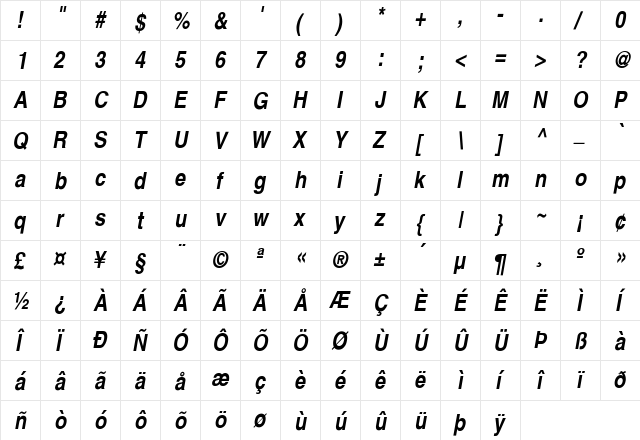
Design Context for Helvetica-Narrow-BoldOblique Typeface
Helvetica-Narrow-BoldOblique offers clean, dependable letterforms without strong stylistic allegiance, making it a practical choice for designers who need flexibility. Its italic angle brings a sense of urgency and motion to the letterforms. The heavy weight commands attention and anchors typographic hierarchies. Its narrow stance lets it pack a punch even in space-constrained designs.
Pro Tip: Use Helvetica-Narrow-BoldOblique for emphasis, pull quotes, and subheadings where its slanted energy can add rhythm to the layout.